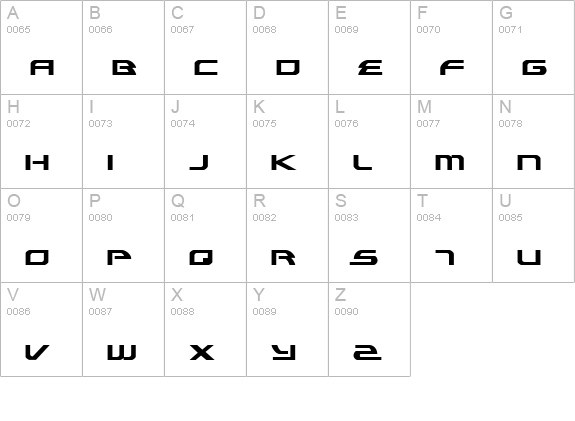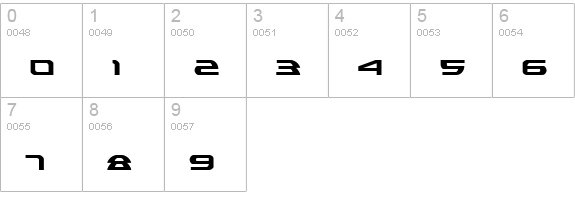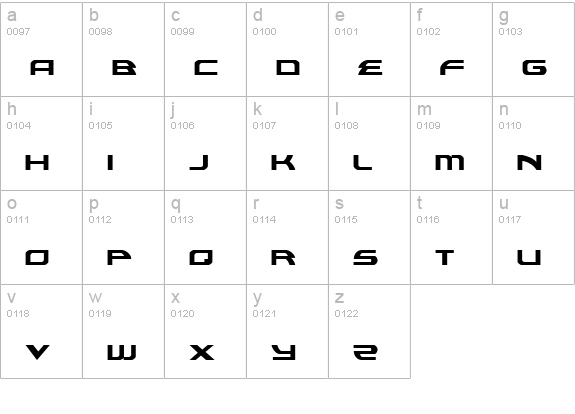
Alexis font is a modern and stylish typeface that exudes elegance and sophistication. With its sleek lines and graceful curves, Alexis font is perfect for adding a touch of class to any design project. Whether you're creating a wedding invitation, a logo, or a website, Alexis font will make your text stand out and leave a lasting impression on your audience. Best of all, Alexis font is available for free download at FontsMarket.com. This means you can add this stunning typeface to your font collection without any cost, making it a valuable resource for any designer or creative professional. Don't miss out on the opportunity to enhance your projects with the timeless beauty of Alexis font – download it today and elevate your designs to new heights!